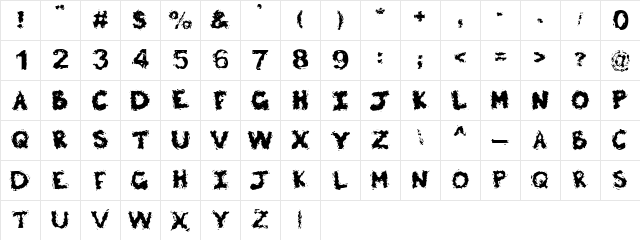
Poltergeist Regular
Design Context for Poltergeist
Poltergeist is a composed and adaptable typeface that performs quietly and consistently across a wide range of design contexts.